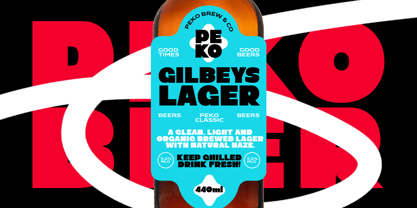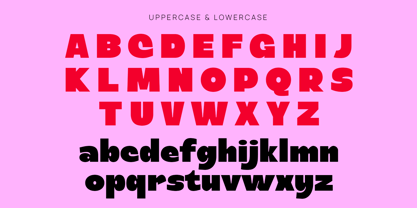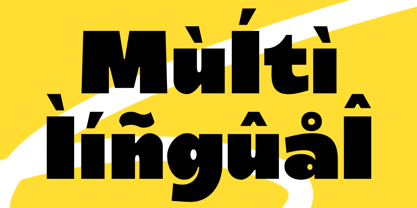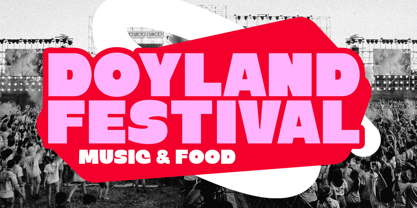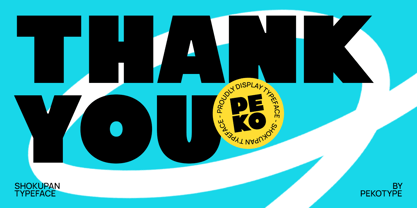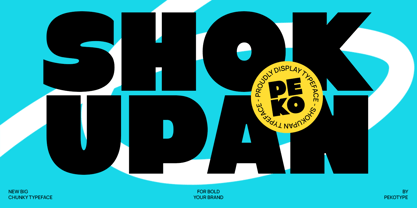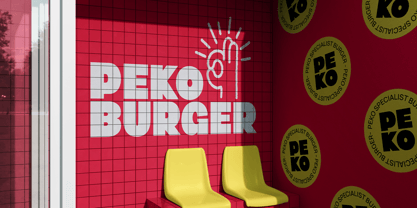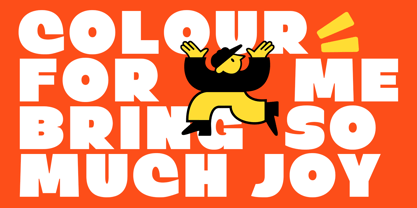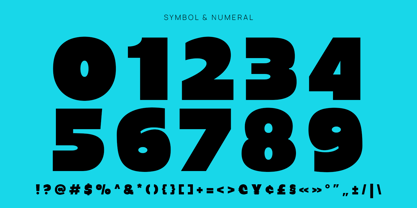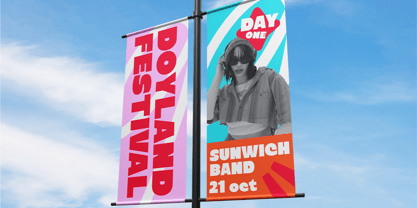
Shokupan
The Shokupan Font Family was designed by Galang Bryan and published by Pekotype. Shokupan contains 1 styles. More about this family
SHOKUPAN is a bold and chunky display font with a fun, friendly personality. Its playful curves and eye-catching shapes make it perfect for branding, logos, packaging, posters, social media content, and other creative projects that need a cheerful and energetic touch. Designed to stand out while staying easy to read, SHOKUPAN brings warmth, character, and a playful vibe to any design.